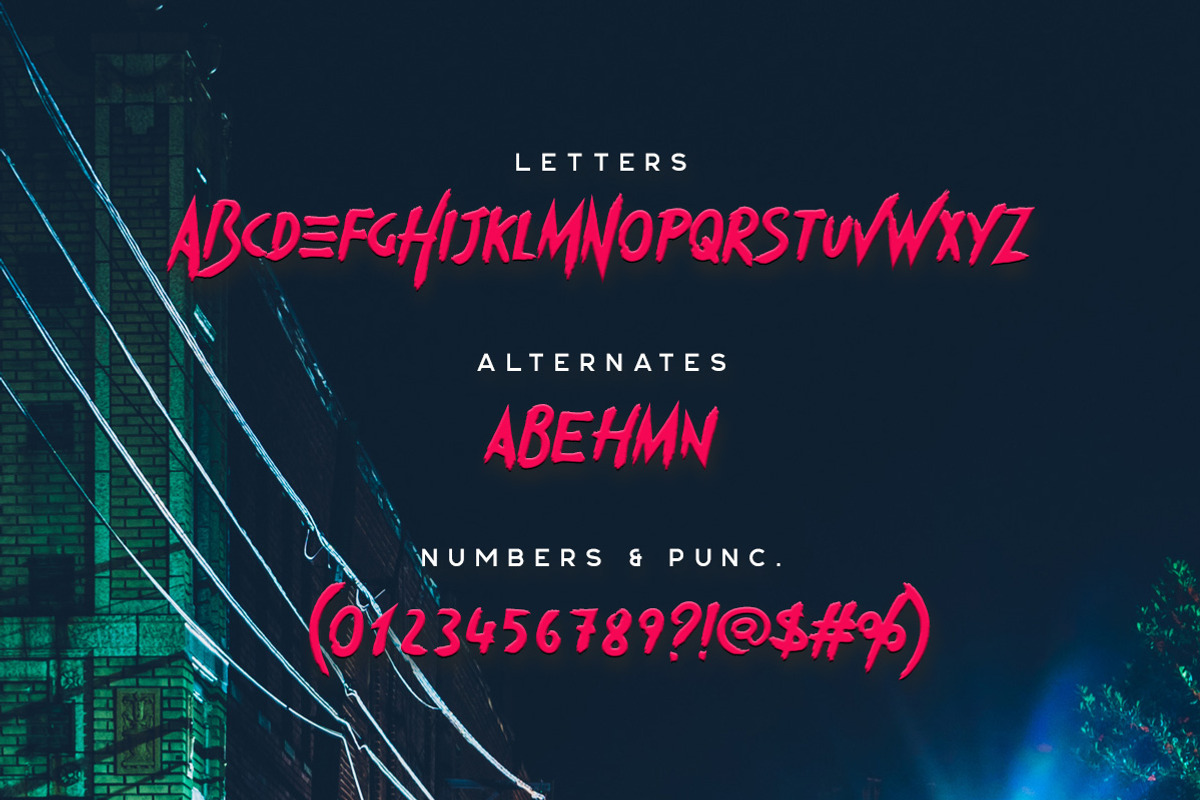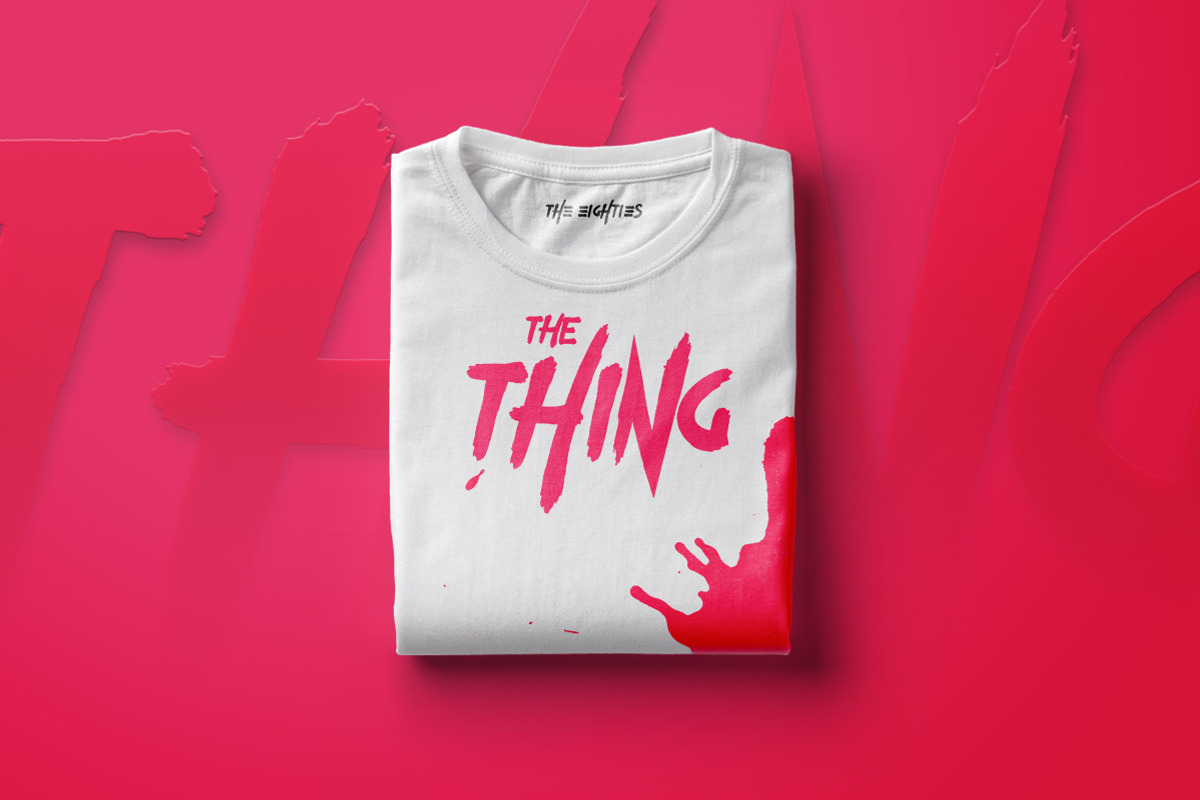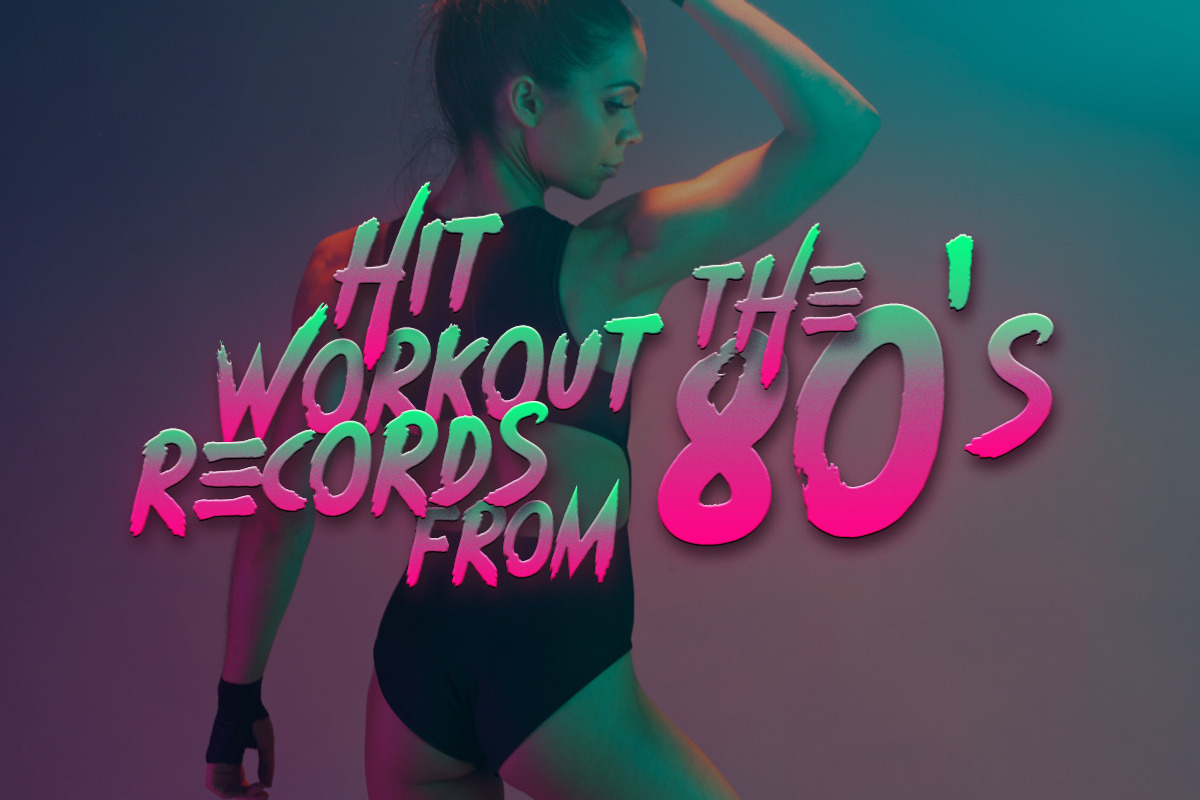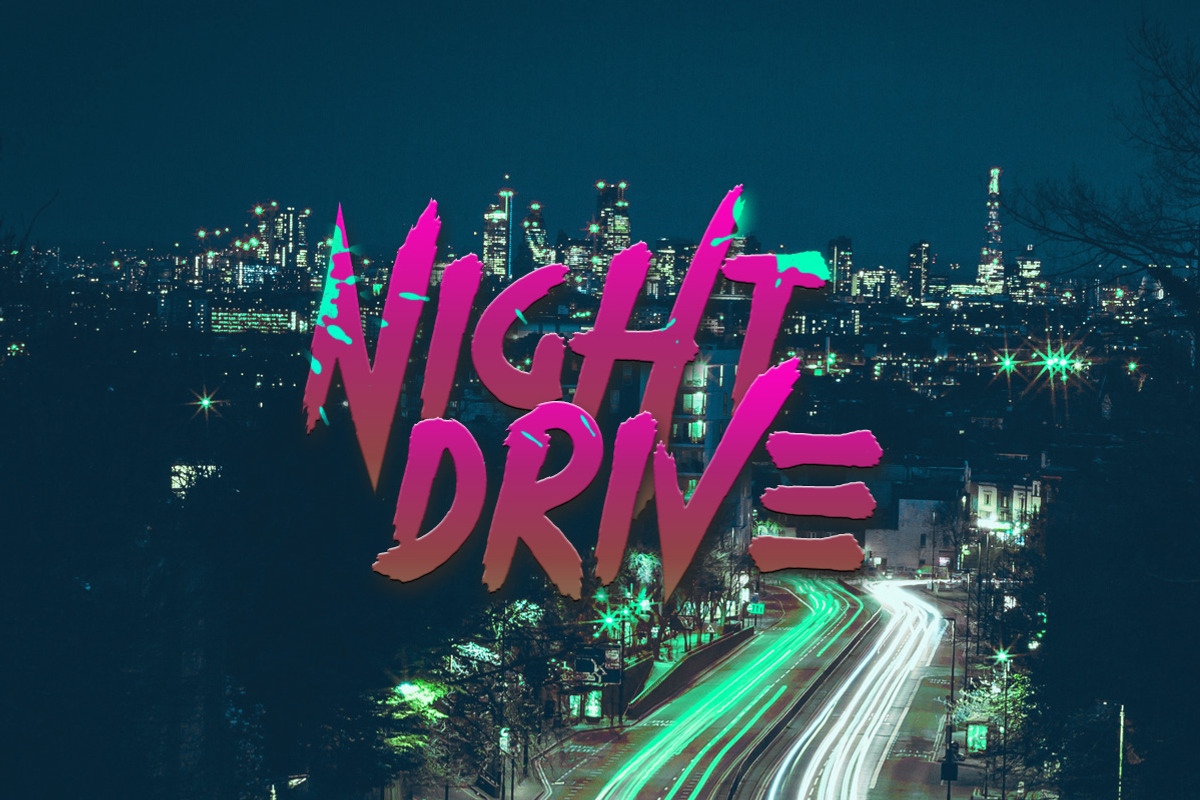
Heatwave - Brush Font
Heatwave - Brush Font by Tugcu Design Co. is a font selected for branding, posters, packaging, typography.
- It comes with uppercase letters, alternates, numbers, punctuation and some multilingual support.
- Heatwave Regular
Why Heatwave - Brush Font is worth a look
Heatwave - Brush Font by Tugcu Design Co. fits naturally into Branding, posters, packaging, typography.